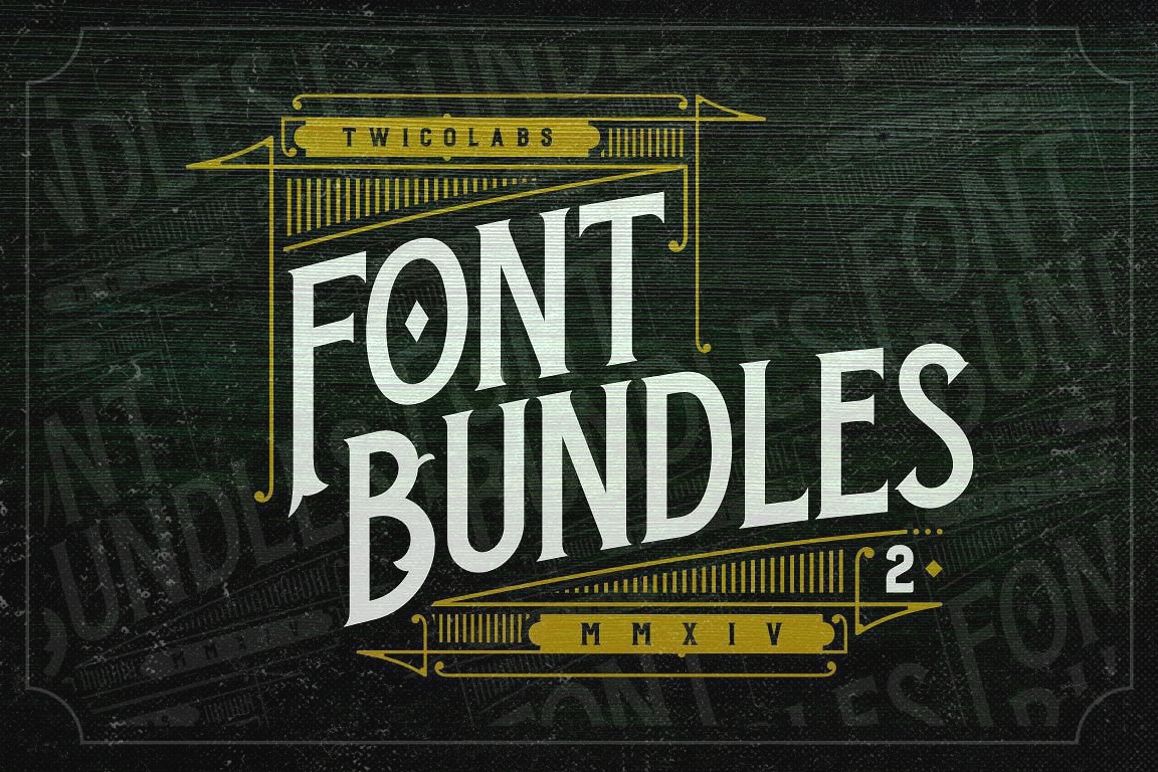
Fontdation Bundles 2
A bundle of our selected classic/vintage-themed typefaces.
Great addition for your designing arsenal, esp. if you're into vintage/classic design themes.